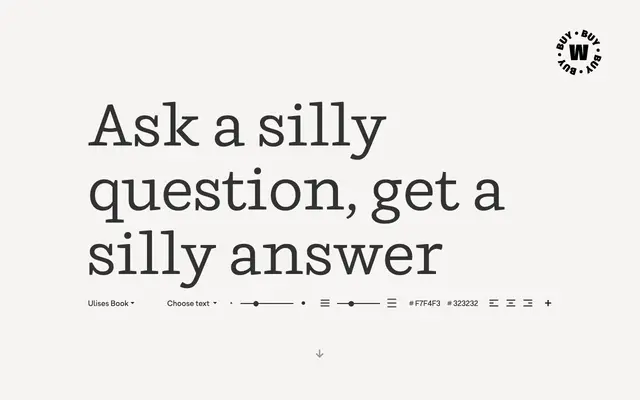
Ulises
W Type Foundry · Salvador Rodriguez, Diego Aravena
A nine-weight slab serif with grotesque touches, intended for both headline and text setting across print and screen.
Designed by Salvador Rodriguez and Diego Aravena, Ulises spans nine weights from Thin to Heavy with matching italics, giving 18 styles in total. The family mixes slab serif structure with grotesque characteristics, a combination the foundry says widens its range of use across graphic design, publishing, web and motion work. Typefaces such as Shift, Brioni, Skolar and Malaga are cited as inspirations, situating Ulises within a contemporary editorial serif tradition.
Described explicitly as an eclectic slab serif with grotesque features, drawing on a modern serif tradition. The mix of slab structure with grotesque influences places it in an eclectic or hybrid slab category.